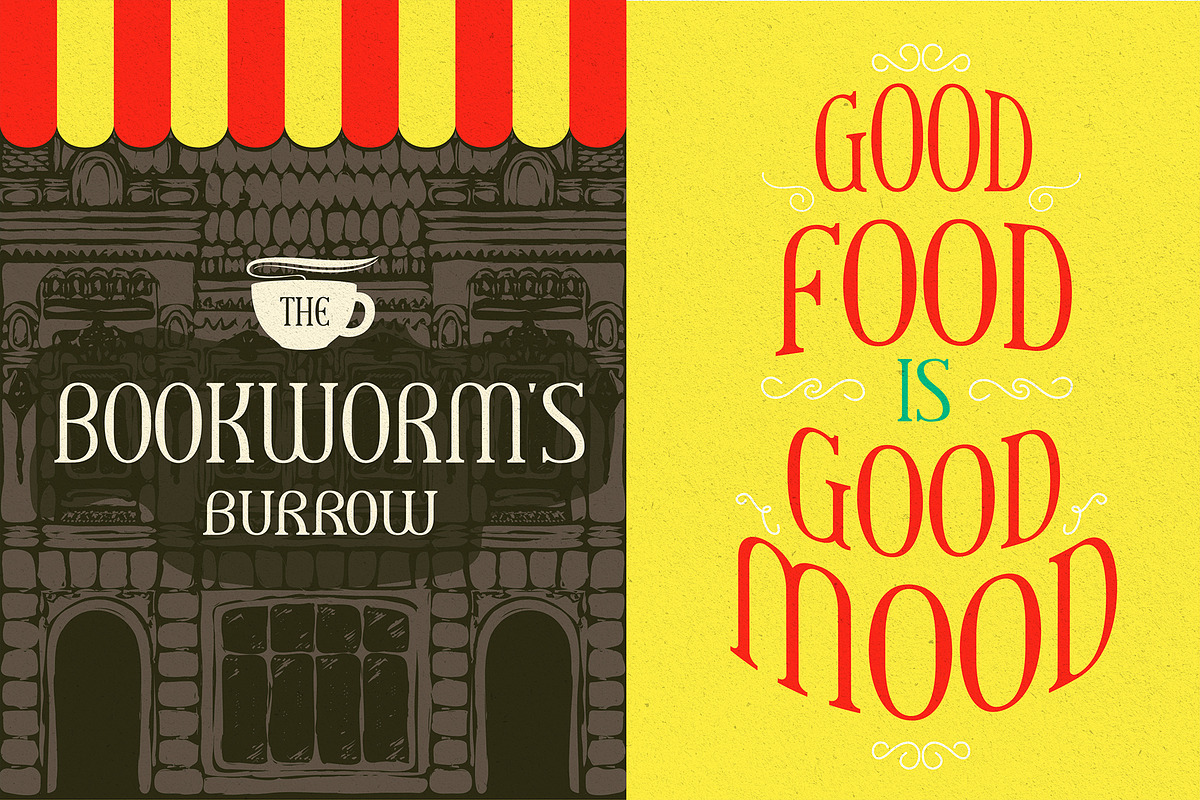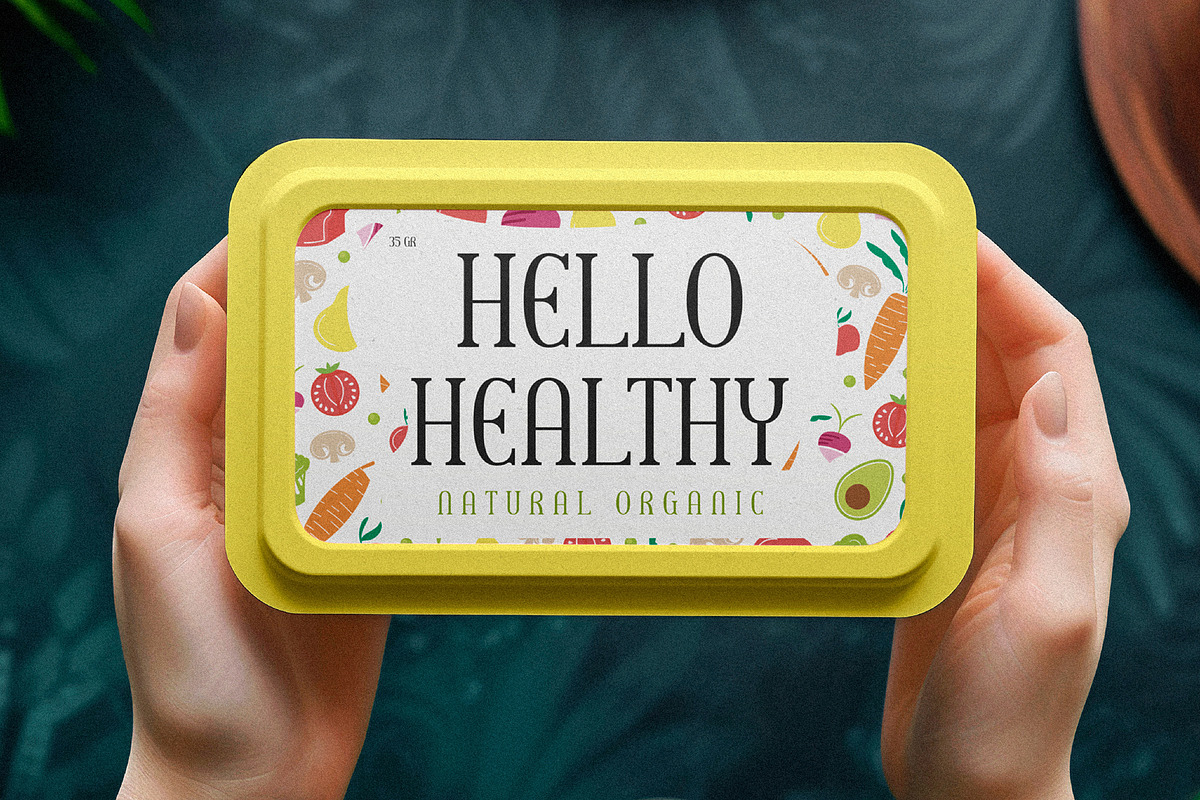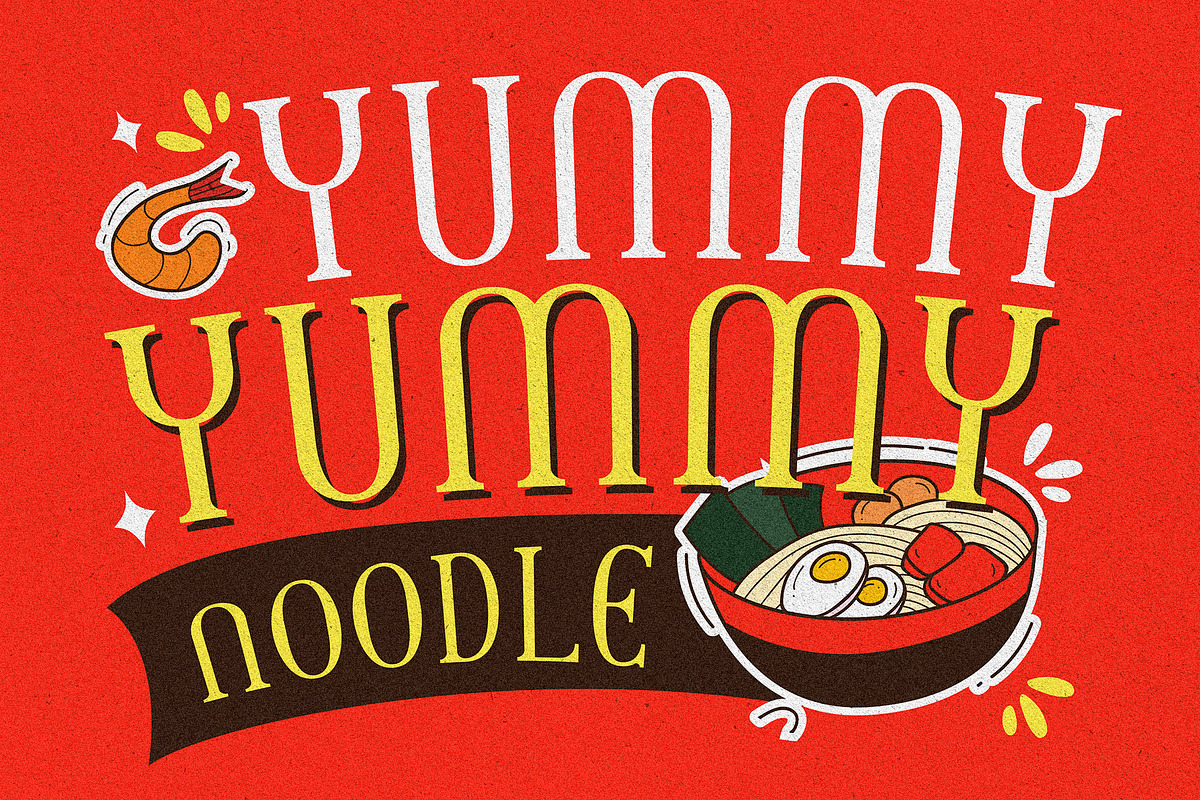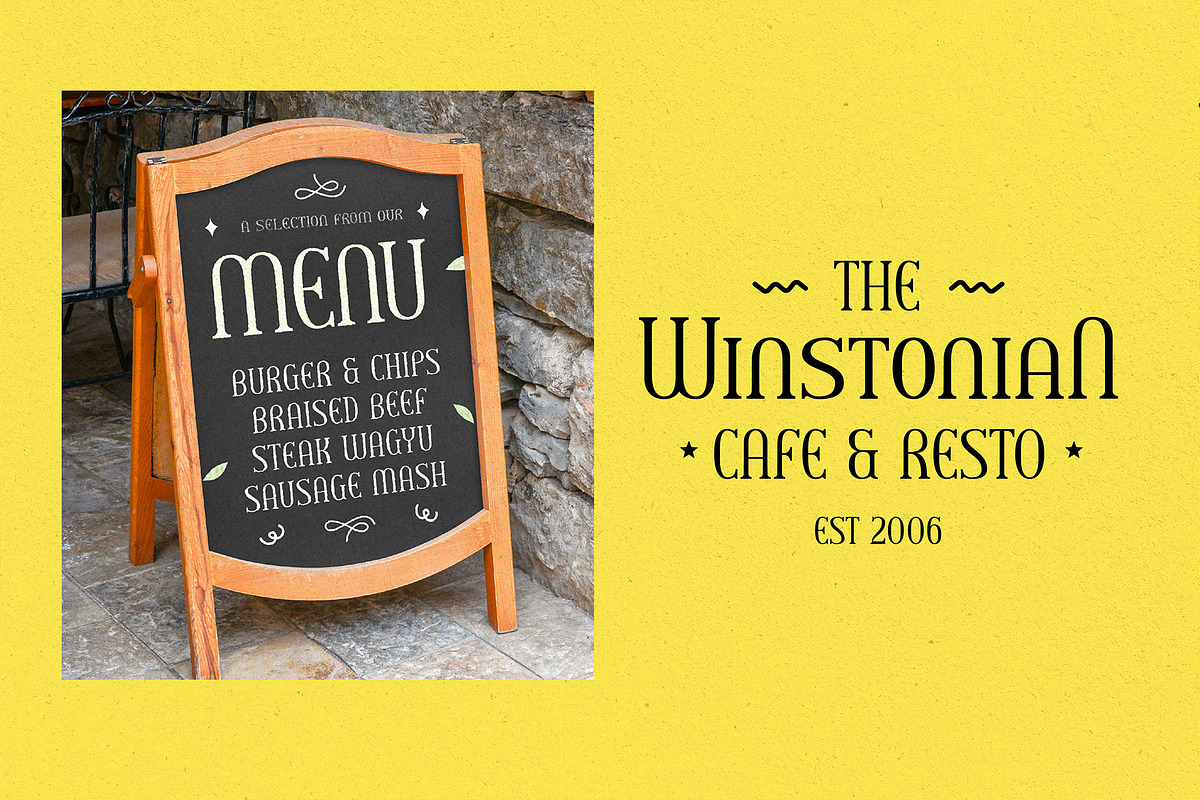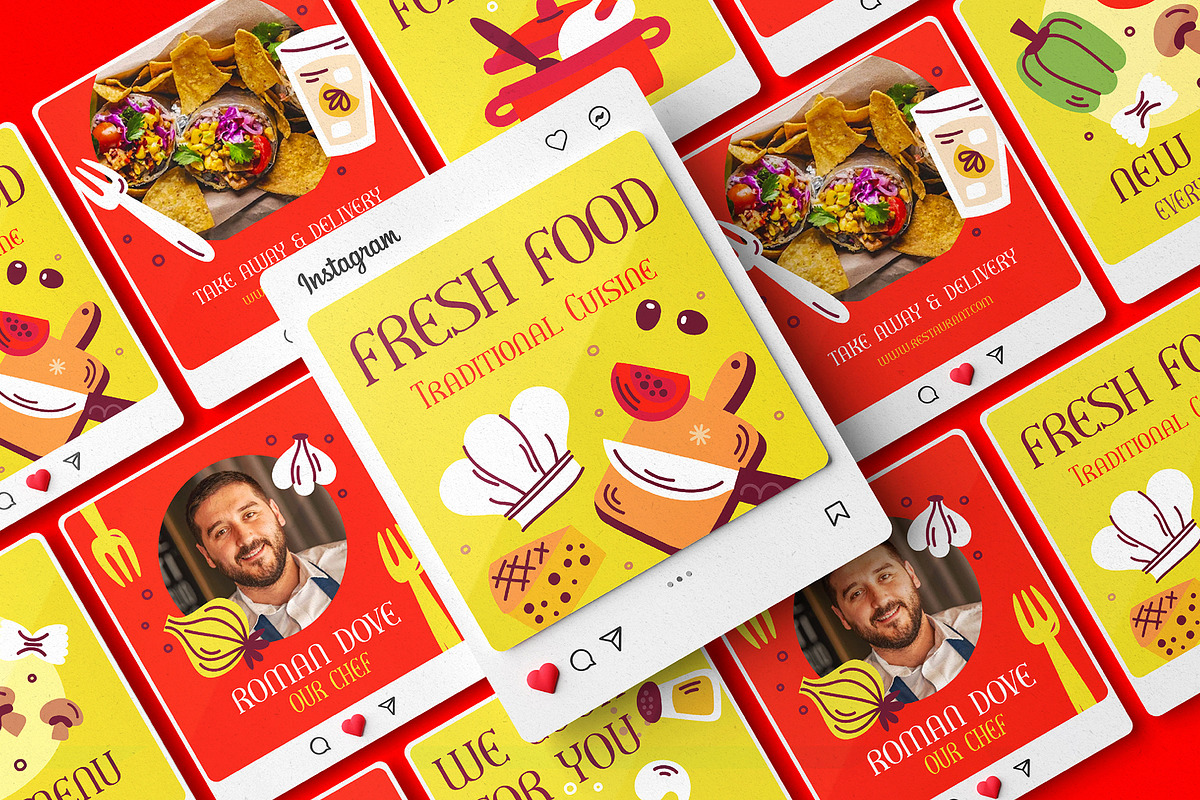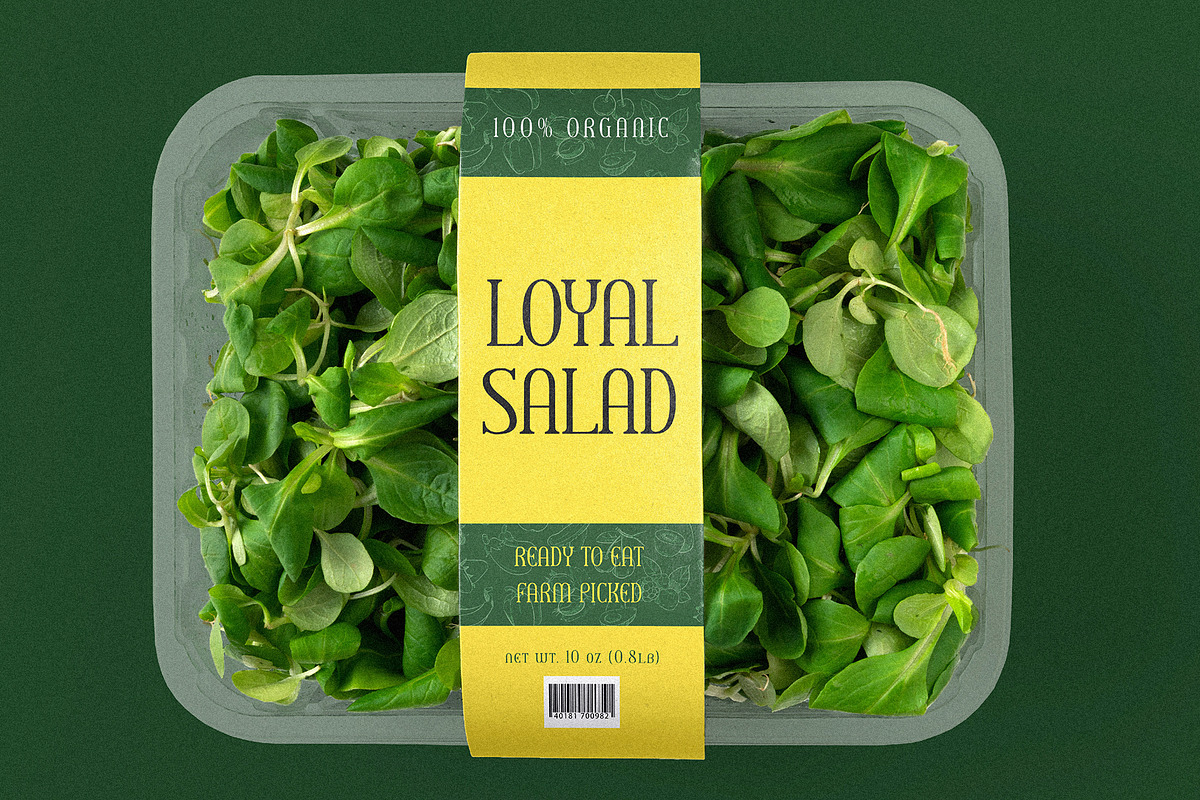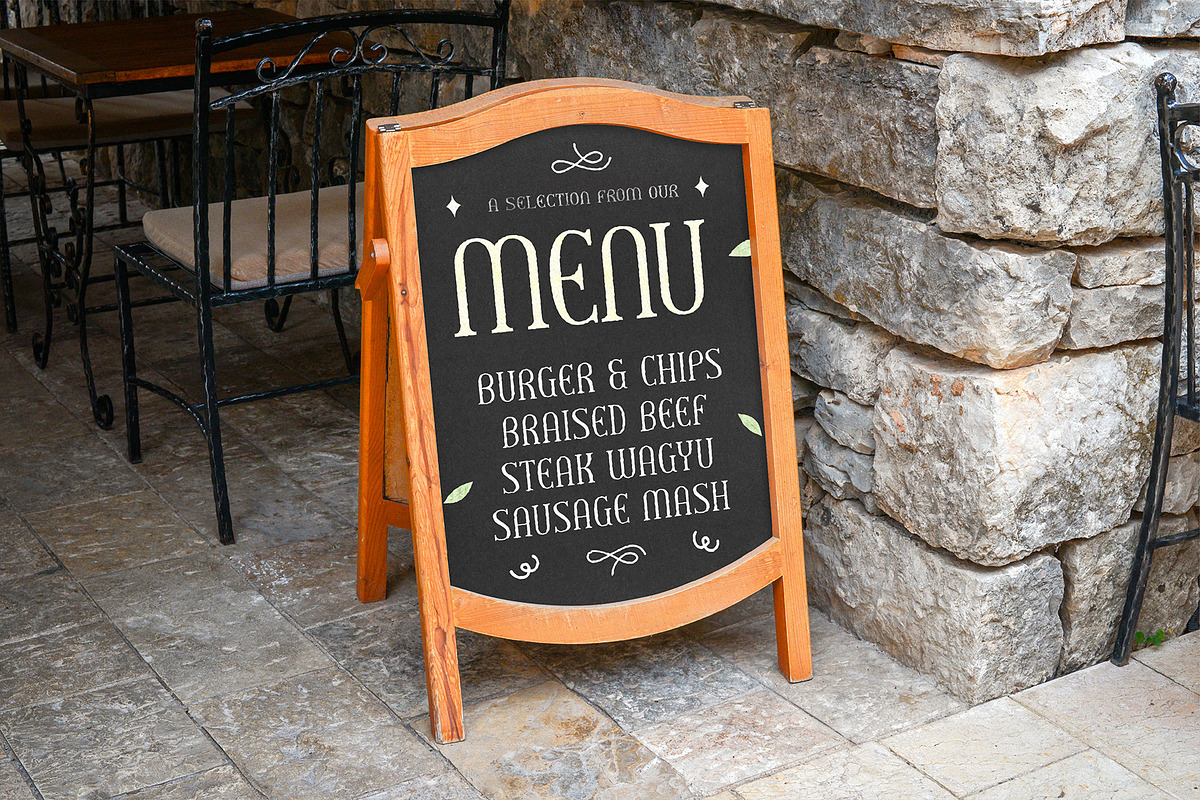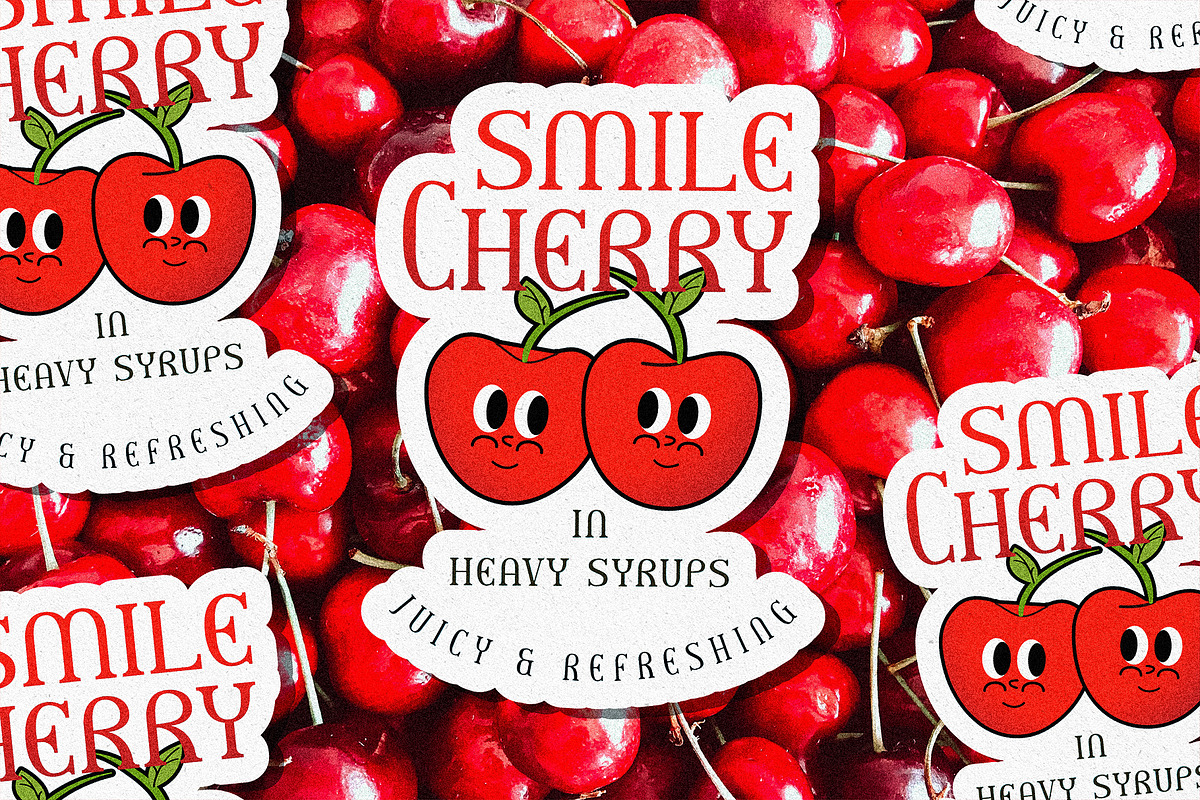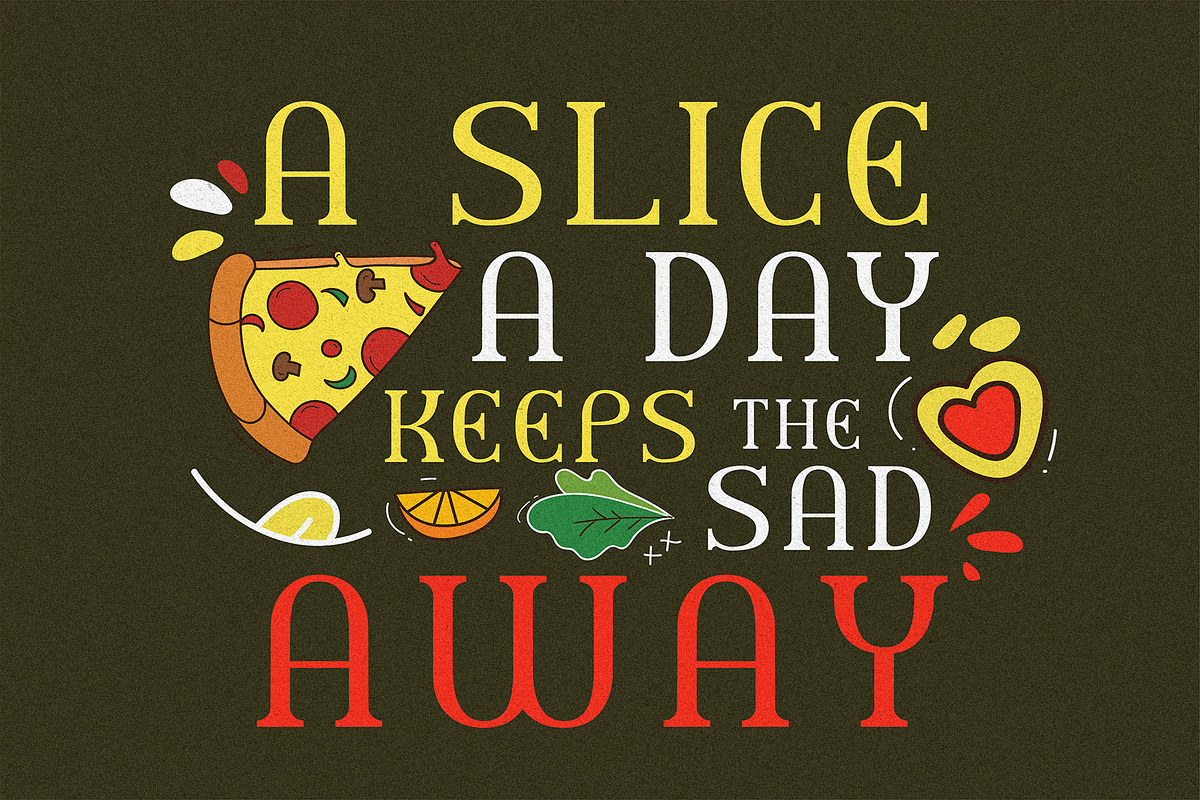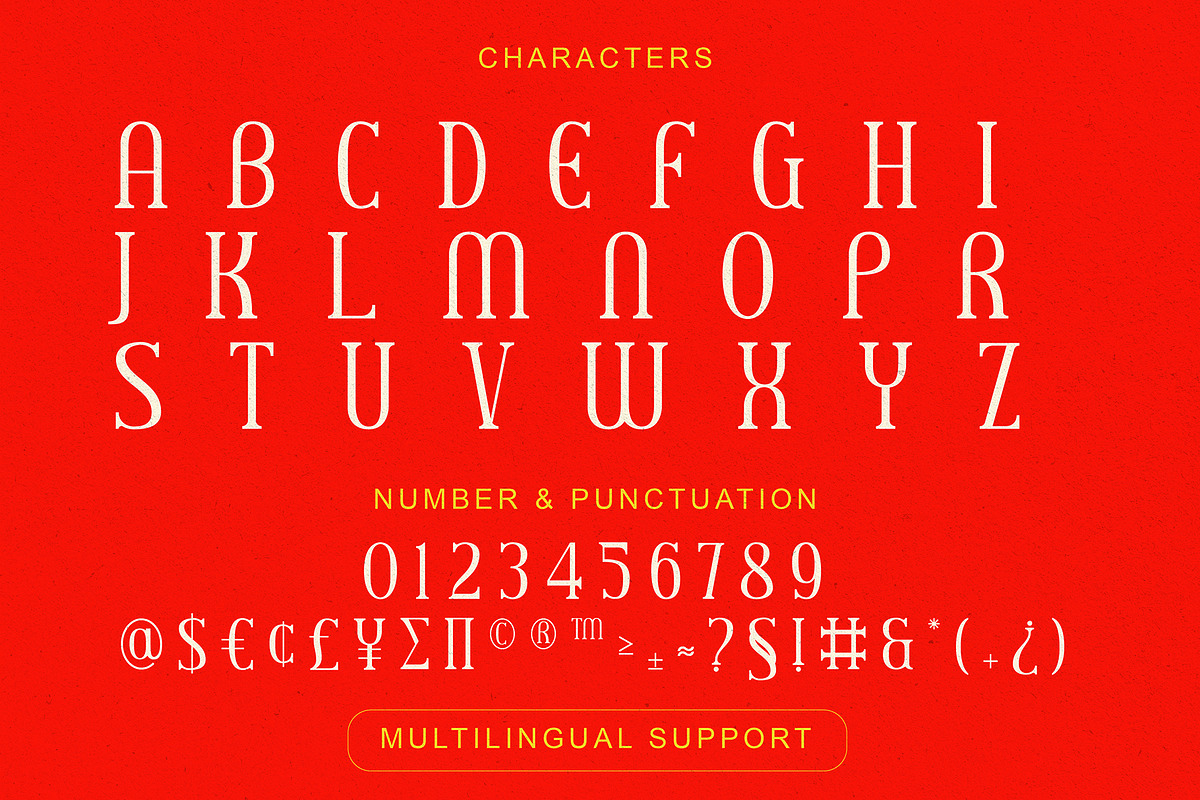
The Eatsome - Summer playful serif
Introducing
The Eatsome - Serif Display Font
The Eatsome is a Uppercase serif display font that brings a touch of nostalgia to your designs. With its elegant serifs and playful curves, this font is perfect for creating eye-catching headlines, logos, and other design elements that demand attention. Its slim aesthetic is versatile, making it a great choice for a wide range of projects, from packaging and advertising to editorial design and more. With its extensive character set and support for multiple languages.
The Eatsome is a versatile font that will add a touch of personality to your designs. Get creative and have fun with The Eatsome today!
- Uppercase letters